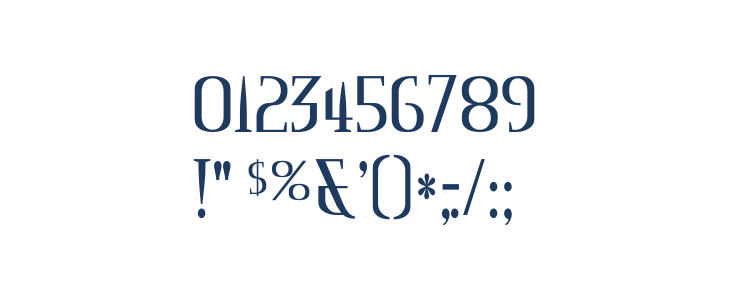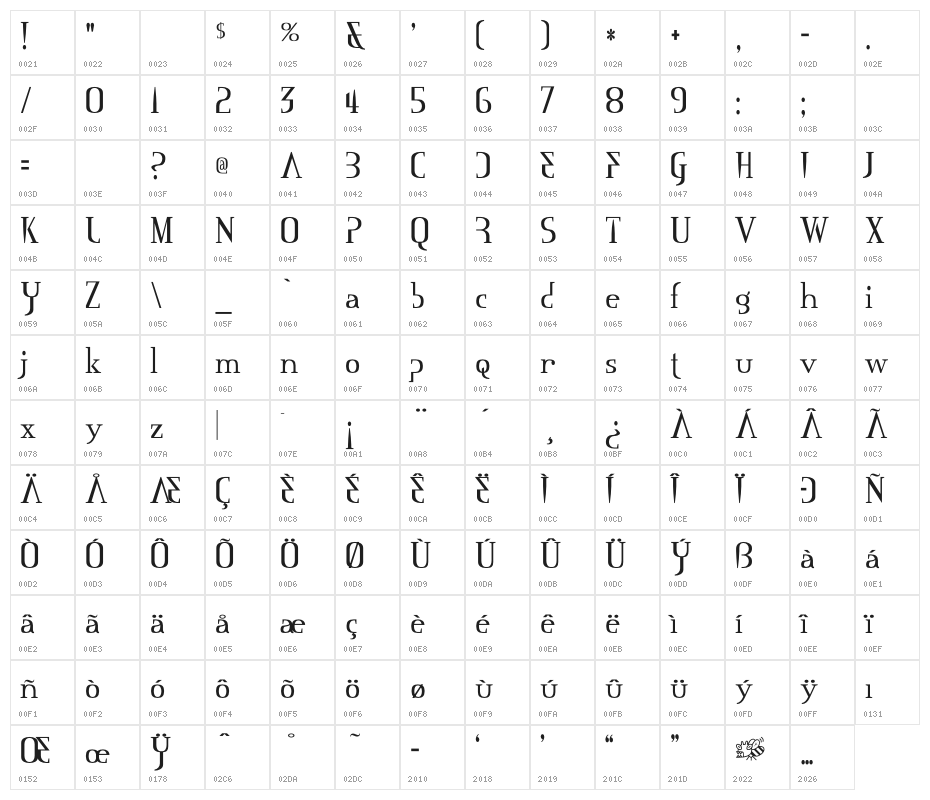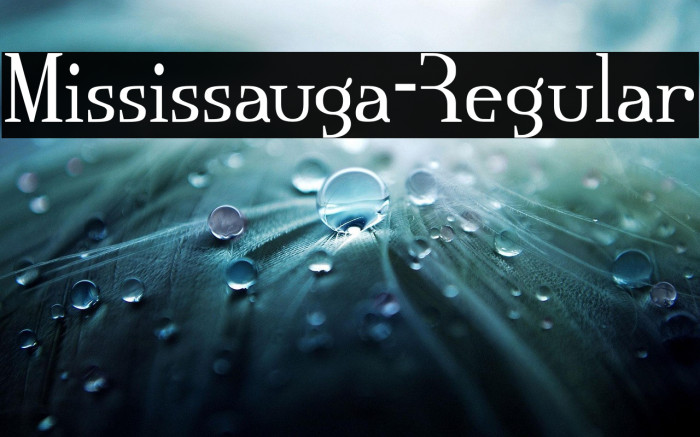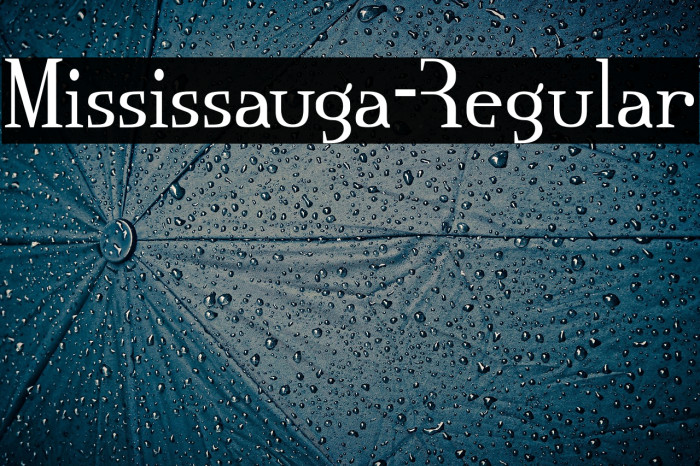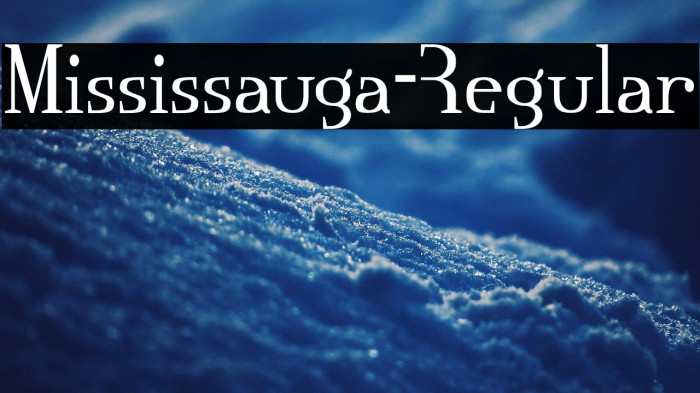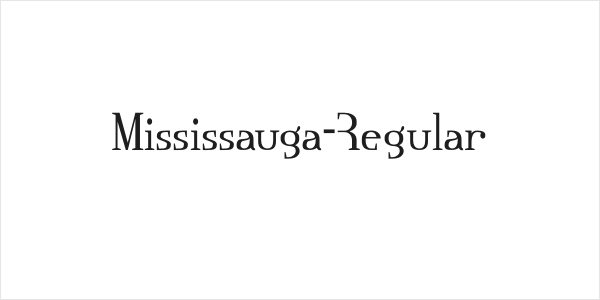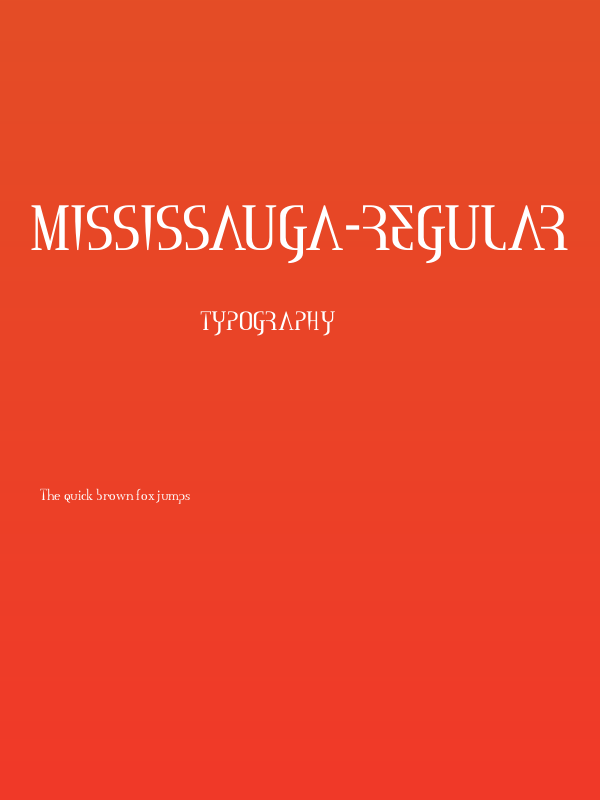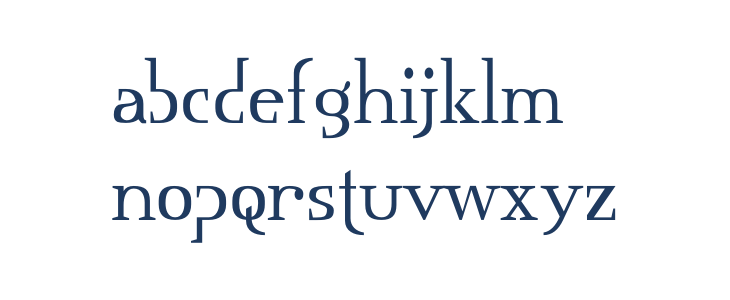
Mississauga-Regular Font
Mississauga-Regular Description
This font exhibits a unique blend of modern and classic elements, characterized by its distinct angular serifs and sharp edges. The uppercase letters have a strong presence with their tall, narrow forms and pronounced serifs, while the lowercase letters maintain a more traditional serif style with a slight curvature. The numerals are bold and consistent, featuring a uniform width that complements the overall design. Special characters are creatively styled, adding a touch of elegance and flair. The font's design is both striking and versatile, making it suitable for a variety of applications.
| Use Case | Headlines, Branding, Editorial Design |
| Proposed Projects | Ideal for branding, editorial design, and headlines where a strong, distinctive serif font is desired. |